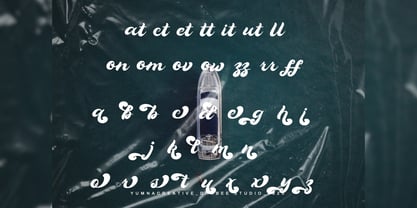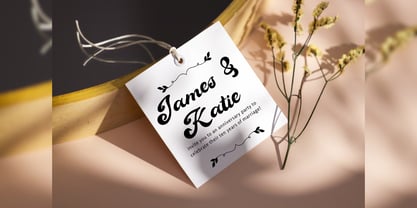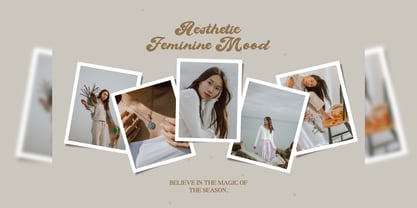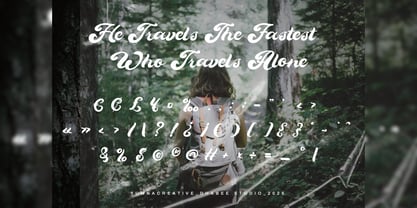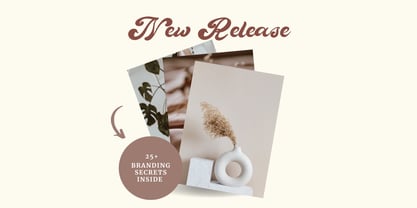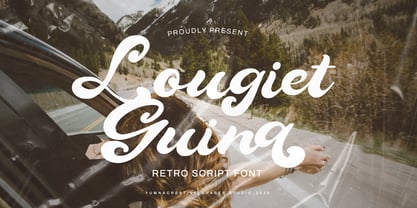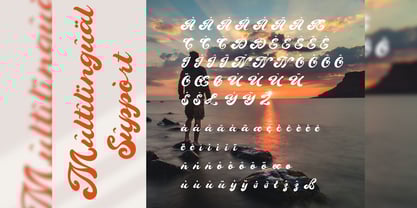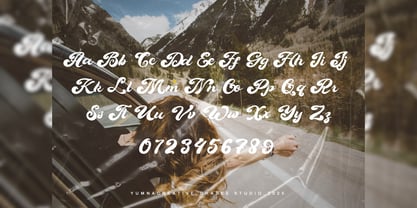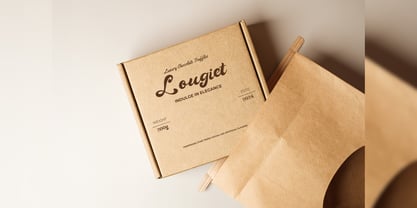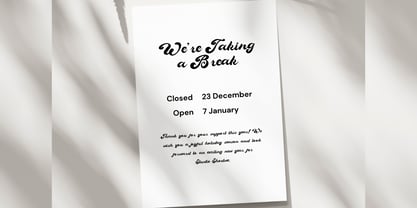
Lougiet Guina
The Lougiet Guina Font Family was designed by Dhimas Habibie and published by Yumnacreative. Lougiet Guina contains 1 styles. More about this family
Introducing Lougiet Guina – Retro Script Font
This Font is a delicate, elegant and flowing handwritten font. It has beautiful and well as a unique blend of ligatures a letter, so that the authors compose it with a and little swirly embedding, so that a modern font is formed and ready to make a statement by adding elegant and unique flair to your next design project. Add it to your most creative ideas and notice how it makes them come alive!
FEATURES
– Uppercase and Lowercase letters
– Alternate and Ligature
– Numbering and Punctuations
– Multilingual Supports